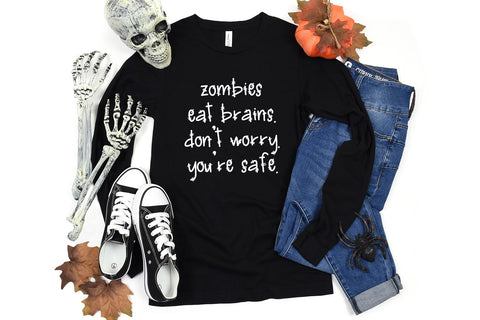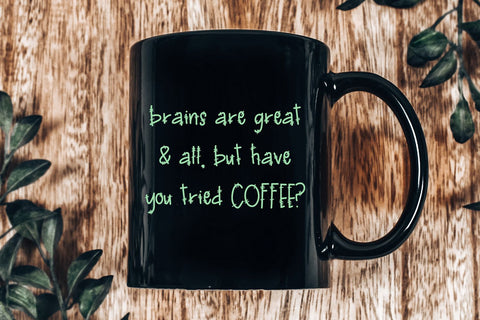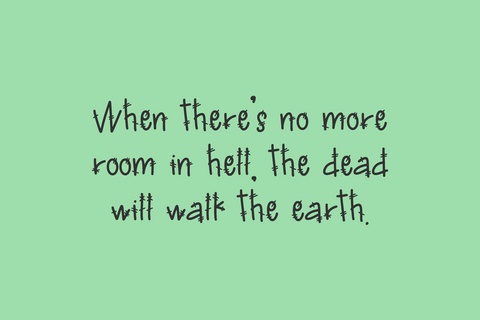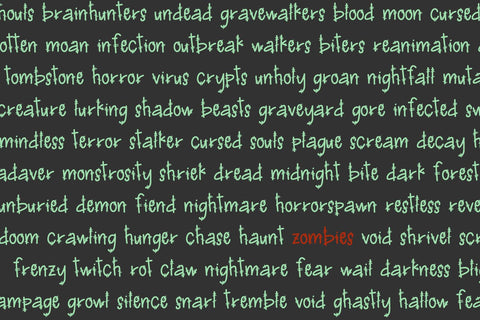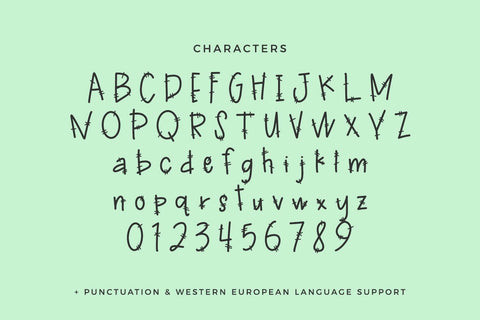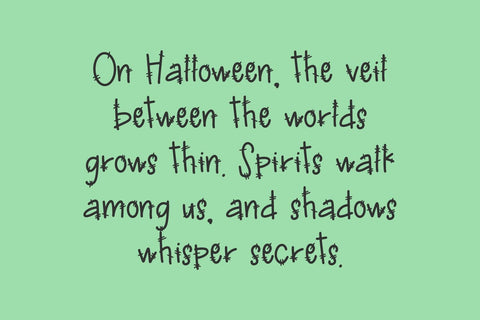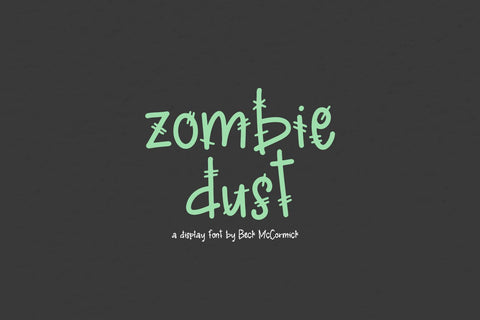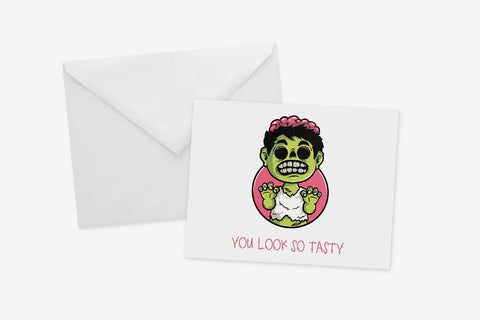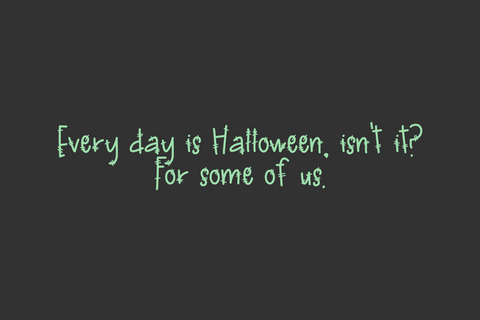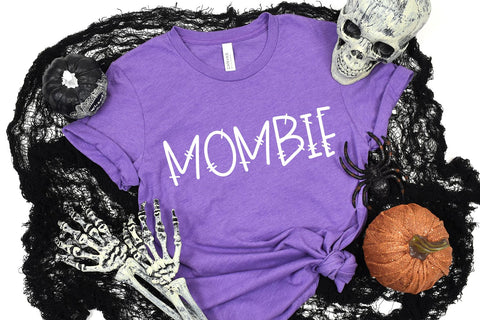
Zombie Dust Monster Font
Introducing Zombie Dust, a playful monster-themed font with stitches. Zombie Dust is a fantastic fit for your scary designs. This font is well-suited for Halloween crafting projects with your Cricut or Silhouette machine, and can be used for things like shirts, signs, labels, marketing materials, social media, SVG designs, greeting cards & other print items, and even spooky logos & branding.
Zombie Dust includes:
- full upper + lowercase characters
- numbers + punctuation
- Beck McCormick ,